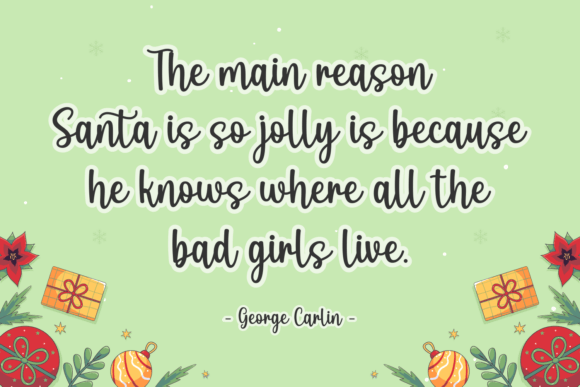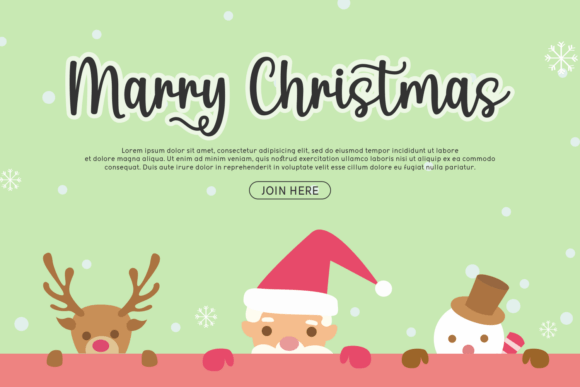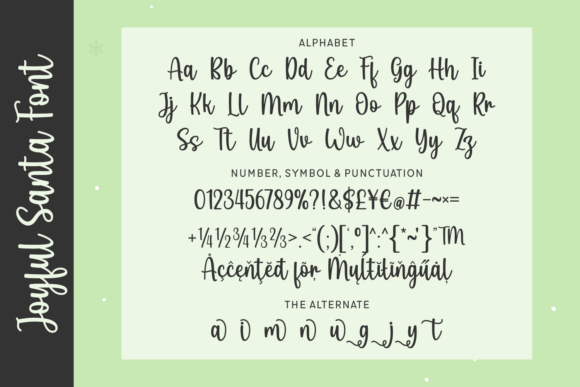
Introduction to Joyful Santa Font
Do you remember the feeling of unwrapping a gift on Christmas morning, surrounded by loved ones, and the excitement of the holiday season filling the air? That magical moment is exactly what the Joyful Santa Font embodies. This cheerful script font is a perfect addition to any festive design, spreading joy and warmth to everyone who sees it.
As a designer, you know the importance of choosing the right font to match your creative project’s tone and style. With the Joyful Santa Font, you can add a touch of fun and playfulness to your designs, making them stand out from the crowd. Whether you’re creating Christmas cards, party invitations, or decorations, this font is a valuable resource that will elevate your design to the next level.
Key Features of Joyful Santa Font
- High-quality, bold, and playful font perfect for creative projects, especially during the holiday season.
- Features a large character set, including uppercase and lowercase letters, numbers, and special characters, making it suitable for various design needs.
- Designed to evoke a sense of joy and festivity, making it an ideal choice for Christmas and holiday-themed designs, cards, and crafts.
Honest Review: Joyful Santa Font
I recently stumbled upon the Joyful Santa Font and I must say, it’s a delightful addition to any design project. As a designer, I appreciate a good resource that can bring some cheer to a creative project.
Here are some aspects that work well: ✨ High-quality vectors for a crisp, clean design ✨ Transparent background for easy layering and compositing ✨ Perfect for holiday-themed projects or children’s illustrations
- Comes with various font weights and styles
However, there are some limitations to consider: ⚠️ Limited character set, so it’s not ideal for large blocks of text ⚠️ May not be suitable for complex or technical designs
Overall, the Joyful Santa Font is a wonderful design resource that can add a touch of whimsy to any project. With its high-quality vectors and transparent background, it’s perfect for holiday-themed projects or children’s illustrations. While it may have some limitations, it’s definitely worth considering for your next creative project.
Getting the Most Out of Joyful Santa Font
For optimal results, use the Joyful Santa Font in conjunction with other design elements, such as graphics and images. Experiment with different font sizes and styles to add depth and visual interest to your design.
The Joyful Santa Font is perfect for holiday-themed designs, such as Christmas cards, gift tags, and party invitations. It’s also great for creative projects like graphic novels, comics, and children’s books.
Q: Is the Joyful Santa Font available in different weights and styles?
Yes, the Joyful Santa Font comes in various weights and styles, including bold, light, and italic. This allows you to add depth and variety to your designs, making them more visually appealing. You can mix and match different weights and styles to create a unique look that suits your creative project.